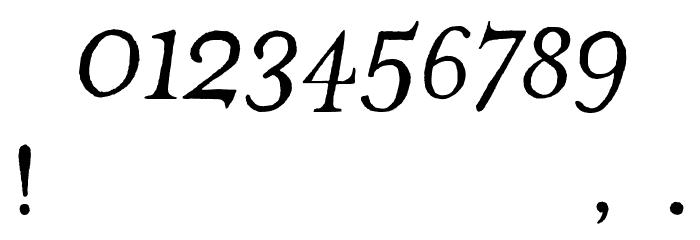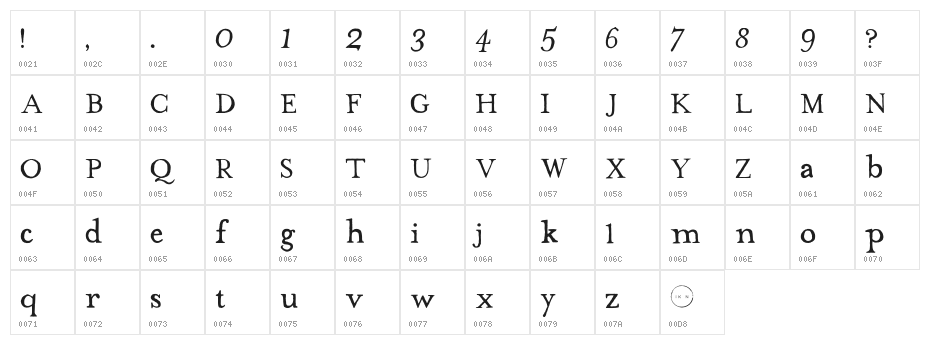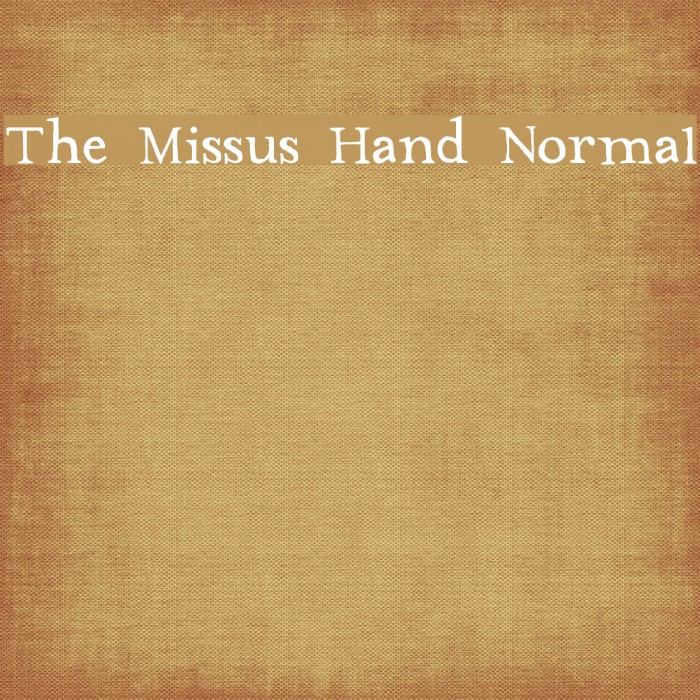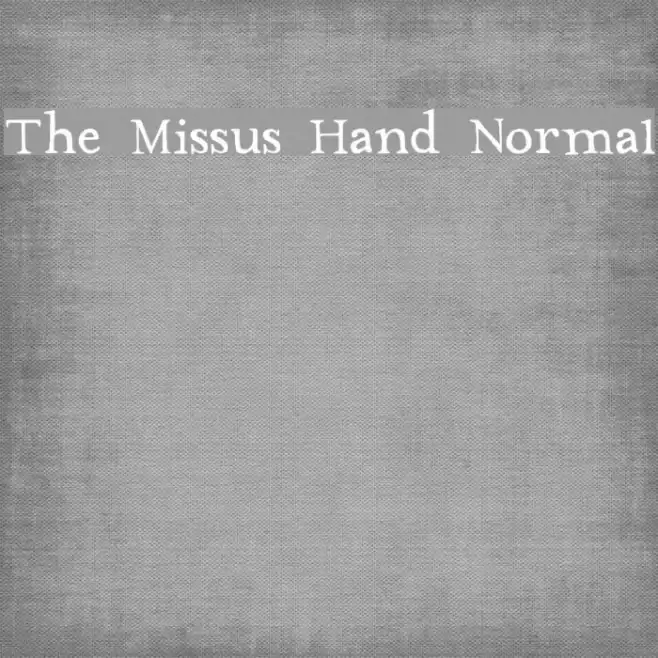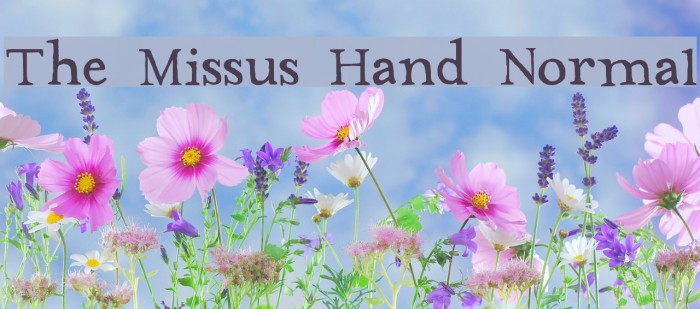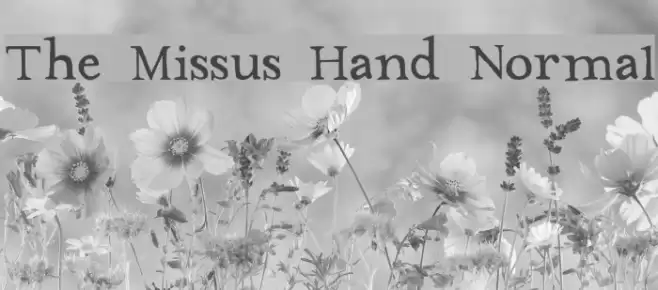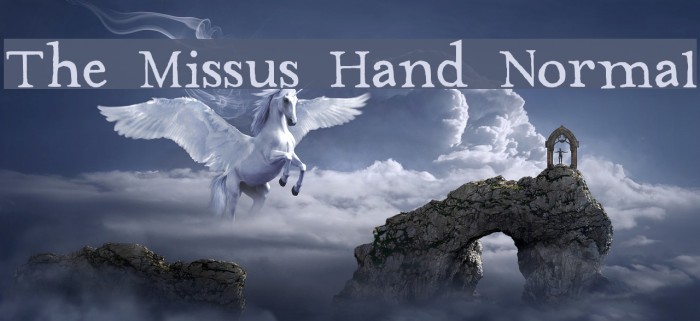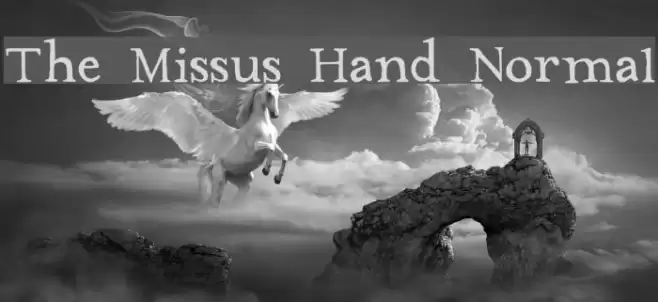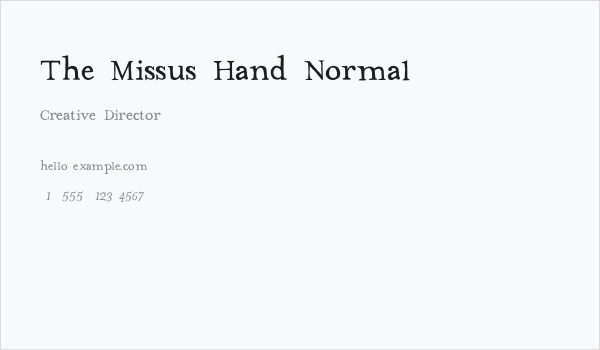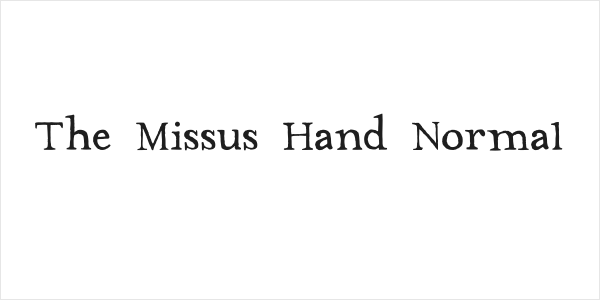
The Missus Hand Normal Font
The Missus Hand Normal Description
This font exudes a charming, hand-drawn aesthetic with a slightly irregular baseline that adds a whimsical touch. The characters are crafted with a medium stroke weight, giving them a balanced presence on the page. The uppercase letters are bold and commanding, while the lowercase letters maintain a playful, approachable feel. The numerals are consistent with the overall style, ensuring readability and cohesion. The special characters, including punctuation marks, are thoughtfully designed to complement the alphabetic characters, maintaining the font's unique personality.
| Proposed Projects | Ideal for greeting cards, children's books, playful branding, and creative invitations. |